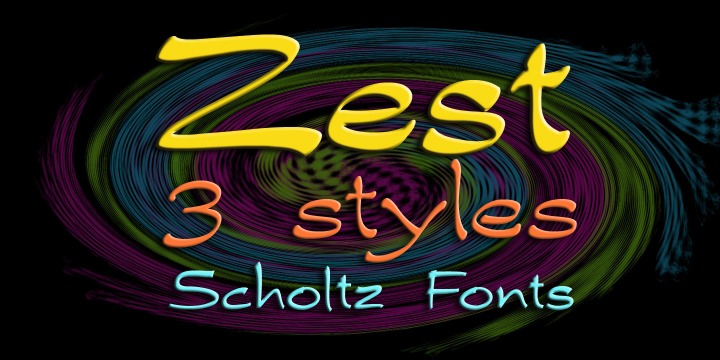
Zest is an informal brush script drawn with quick, thick brush strokes. While it is based on everyday handwriting, the expansive and easy flow of the script hides the care that has been given to the crafting of each character. In style it harks back to the hey-day of American lettering and calligraphy, yet it has a looseness that is thoroughly modern.
Zest comes in three styles:
-- Zest-Medium, which is medium-weighted and appropriate to a wide range of applications; More…
-- Zest-Drama, in which the contrast between the the thicker and thinner parts of a brushstroke has been dramatically enhanced; and
-- Zest Bezel, in which the brush strokes have been given a contemporary, square-cut appearance.
Zest is ideal for invitations to stylish but relaxed events, for advertisements that are intended to create a special ambiance, for posters and for announcements.